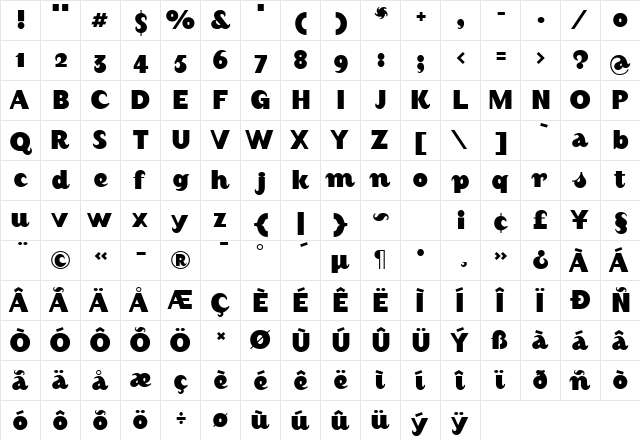
AugustBlackAlternate Regular
Design Context for AugustBlackAlternate Typeface
AugustBlackAlternate offers clean, dependable letterforms without strong stylistic allegiance, making it a practical choice for designers who need flexibility.